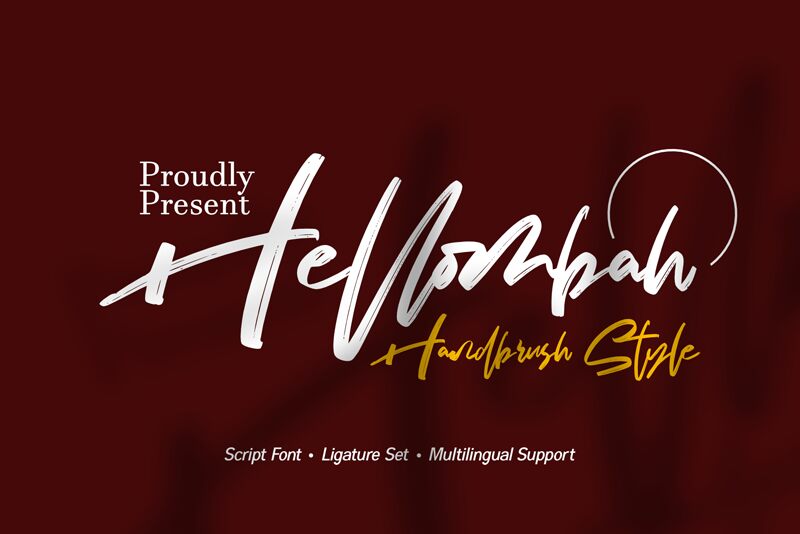
Hellombah
Hellombah, a creation of DumadiStyle, captures the essence of handcrafted artistry with its brush and signature style. This semi-bold font exudes a personal touch that adds warmth and character to any project. Its fluid strokes and varied line weights mimic the natural variation found in handwritten text, making it an ideal choice for designs that require a touch of intimacy and elegance.
The aesthetic appeal of Hellombah is undeniable, with each character displaying an organic flow that lends itself to a wide range of creative endeavors. From branding projects to personalized stationery, this font's stylish appearance ensures it stands out. Its brush-like quality conveys a sense of spontaneity while maintaining readability—a balance that is often sought but rarely achieved.
Whether you're looking to infuse your graphic designs with personality or aiming to give your digital content a signature flair, Hellombah offers versatility without sacrificing style. Embrace the charm of DumadiStyle's Hellombah for your next project and let its distinctive qualities elevate your design narrative.